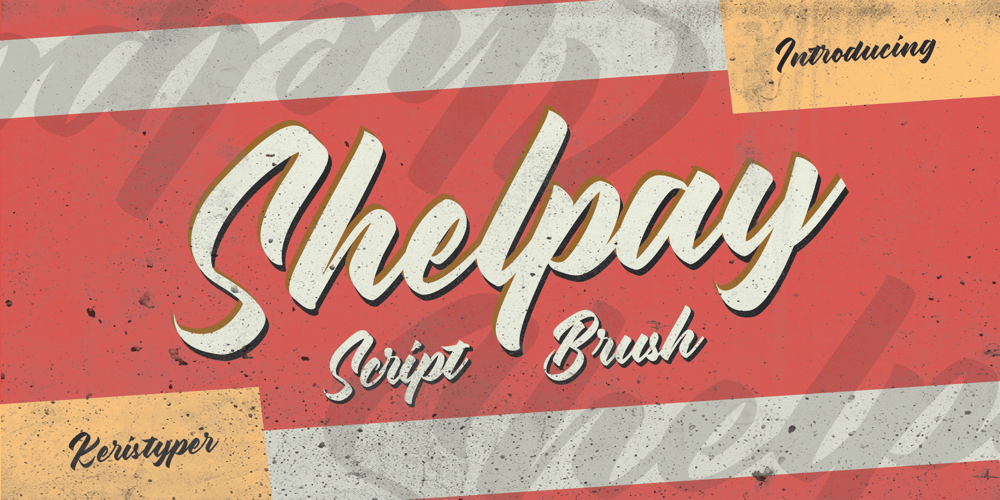
Shelpay Font Family was designed by Tezar Tantular and published by Keristyper Studio. Shelpay contains 1 styles and family package options. Salzburg Script Inspired by Retro Vintage style and combination with Brush Hand Lettering. I’m made with a personality that touch every single curve. I hope this can make inspire you with your work. and a very bouncy baseline It has a perfectly paired complimentary marker font. Good for logos, handwritten quotes, product packaging, header, poster, merchandise, social media & greeting cards.Salzburg Font multilingual support: Afrikaans, Albanian, Catalan, Danish, Dutch, English, Estonian, French, Finnish, German, Icelandic, Indonesian, Italian, Malay, Norwegian, Portuguese, Spanish, Swedish, Zulu, and many more.What’s Included : Web Fonts Standard & Multilingual glyphs Ligature Works on PC & Mac Simple installations Accessible in Adobe Illustrator, Adobe Photoshop, Adobe InDesign, and even work on Microsoft Word. Hope you enjoy our font!